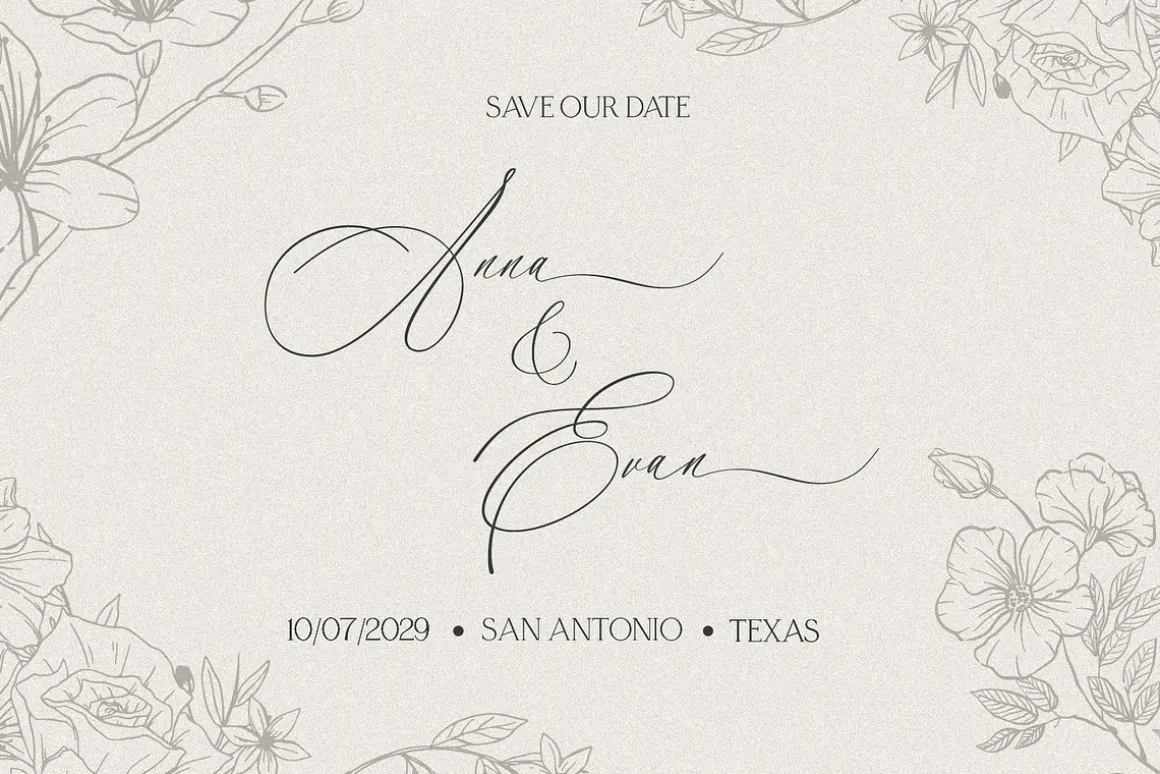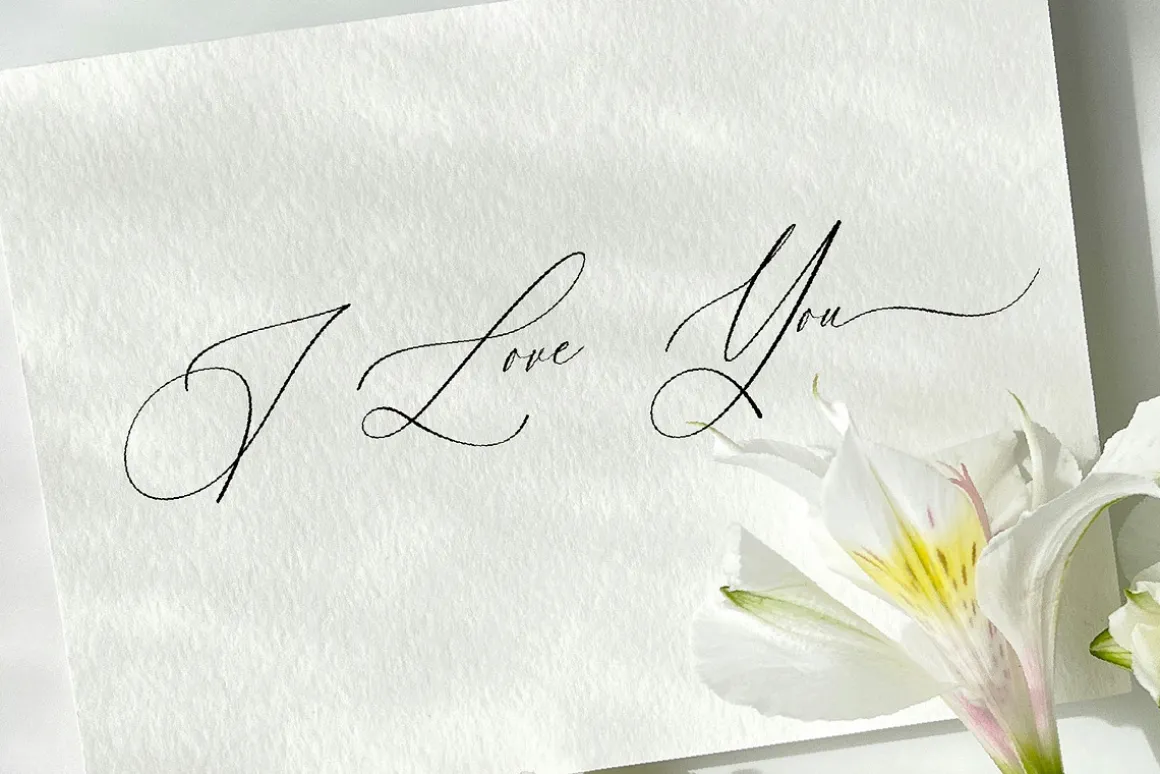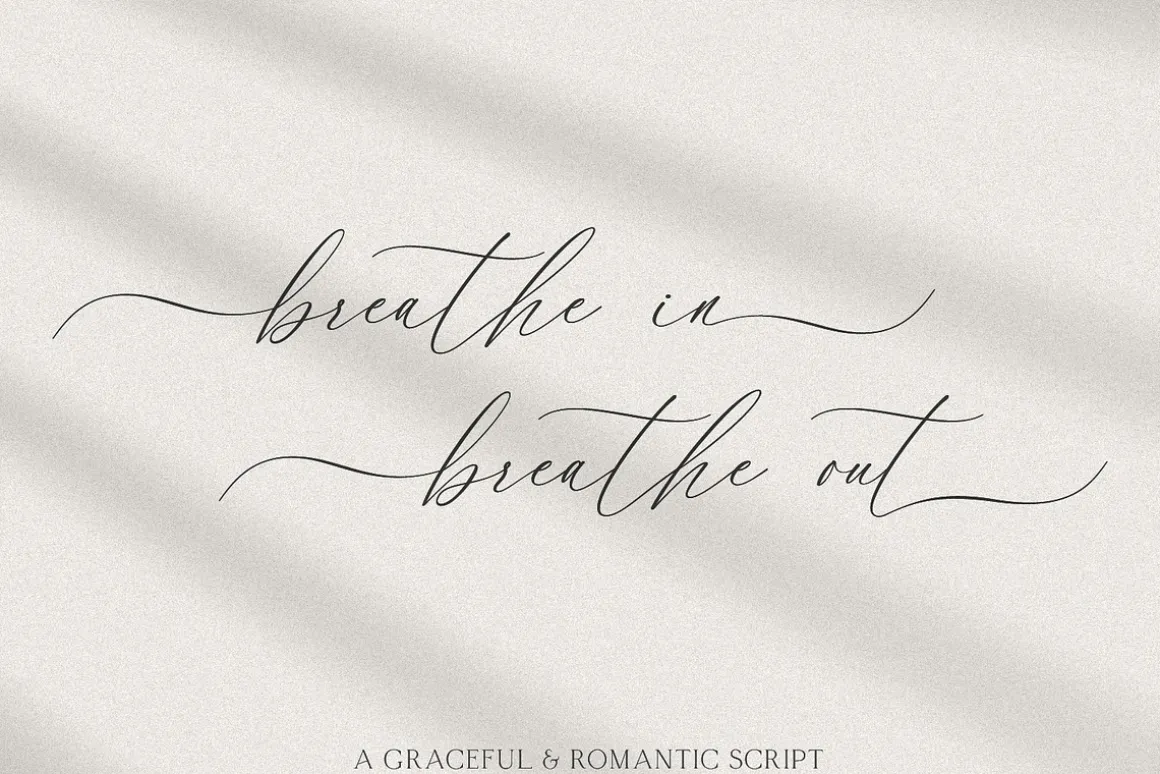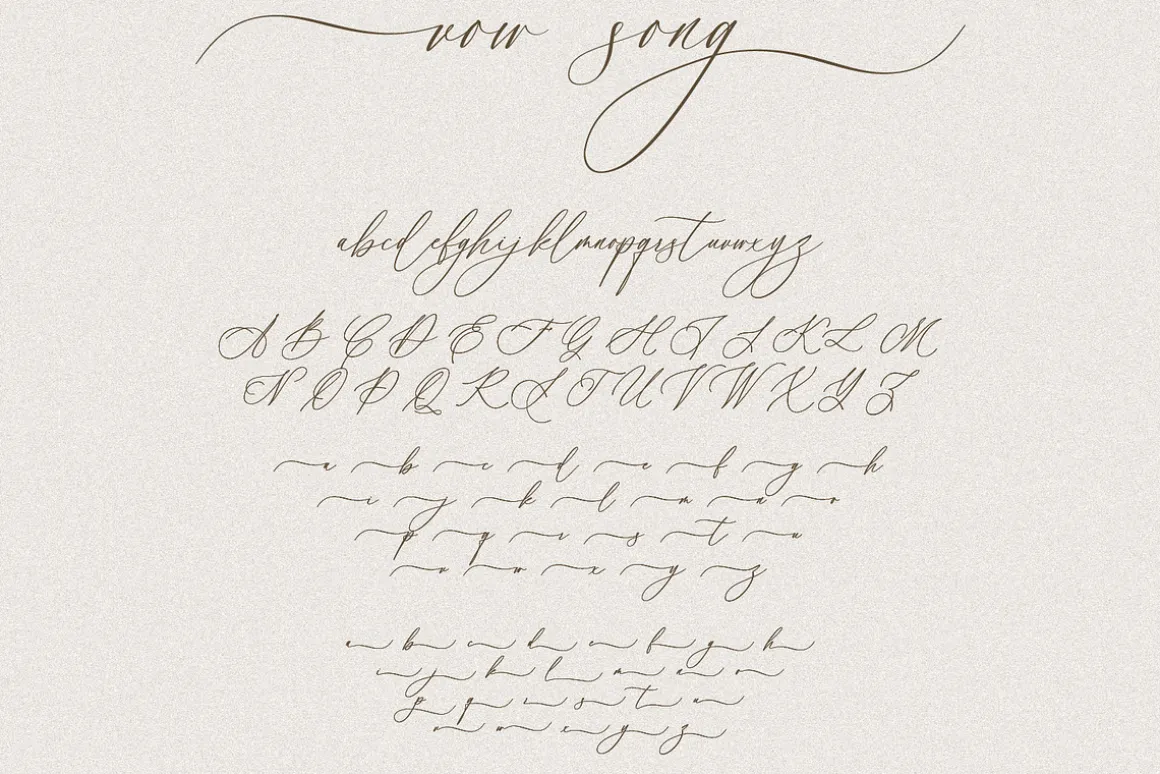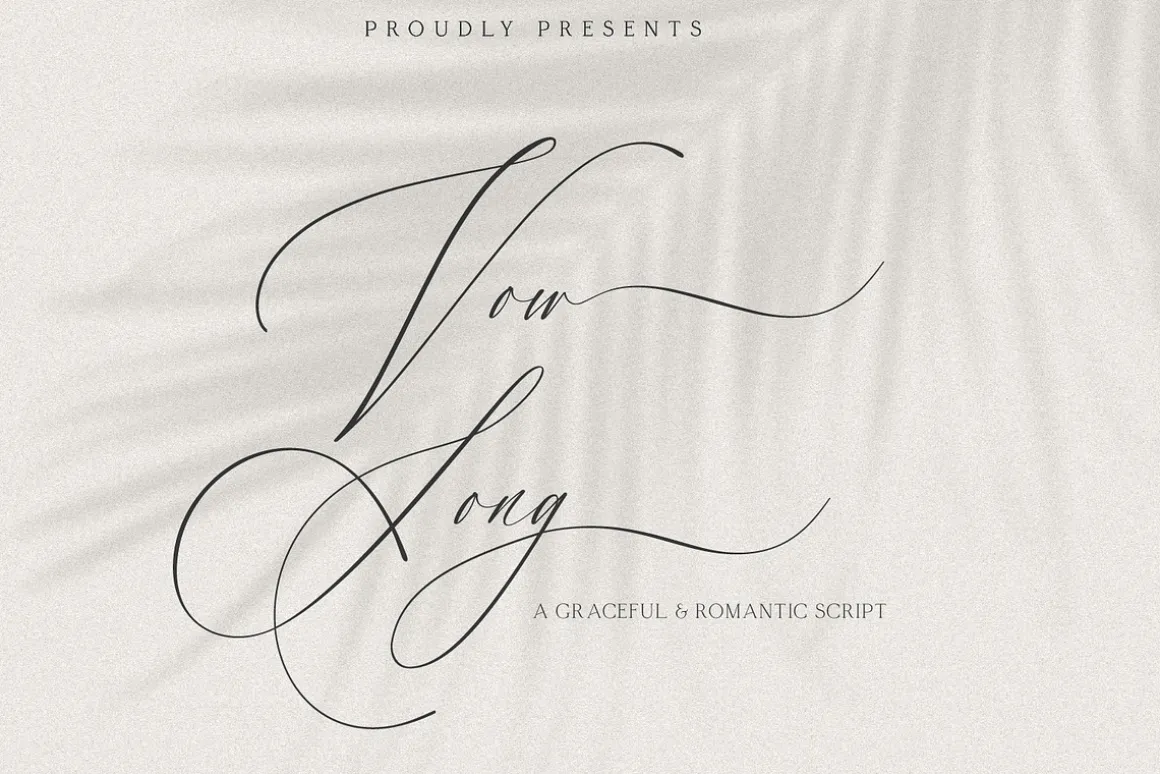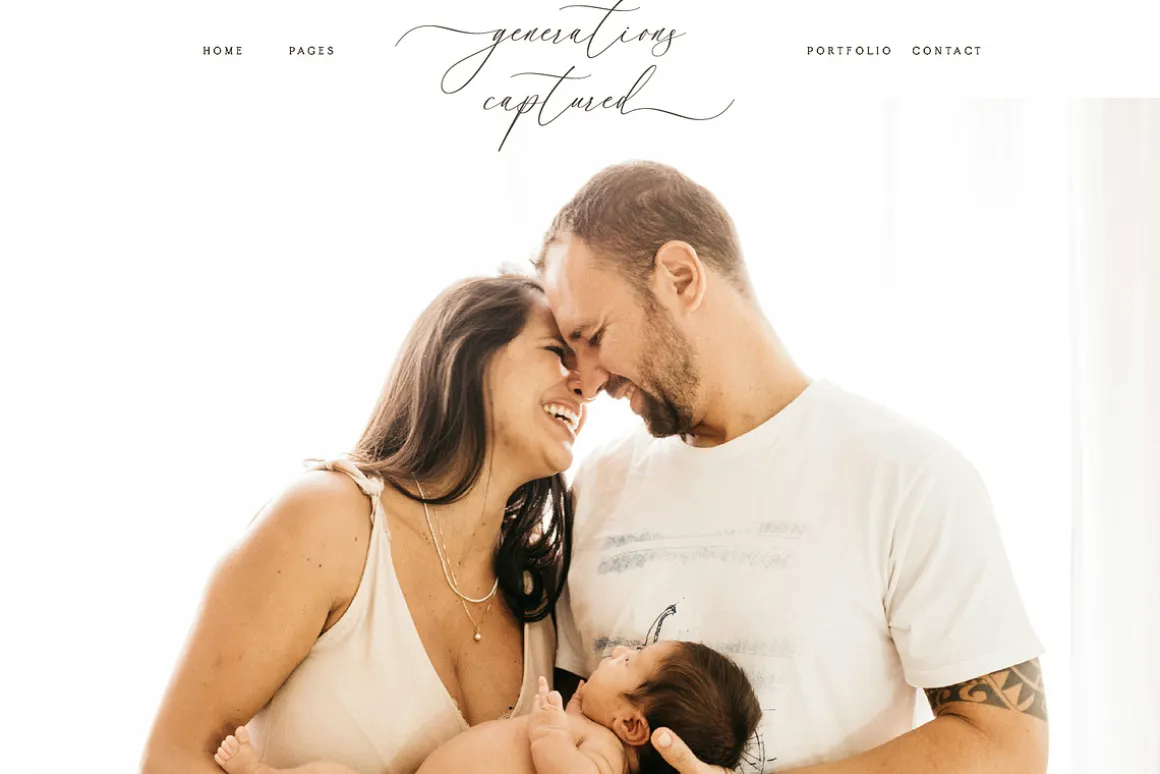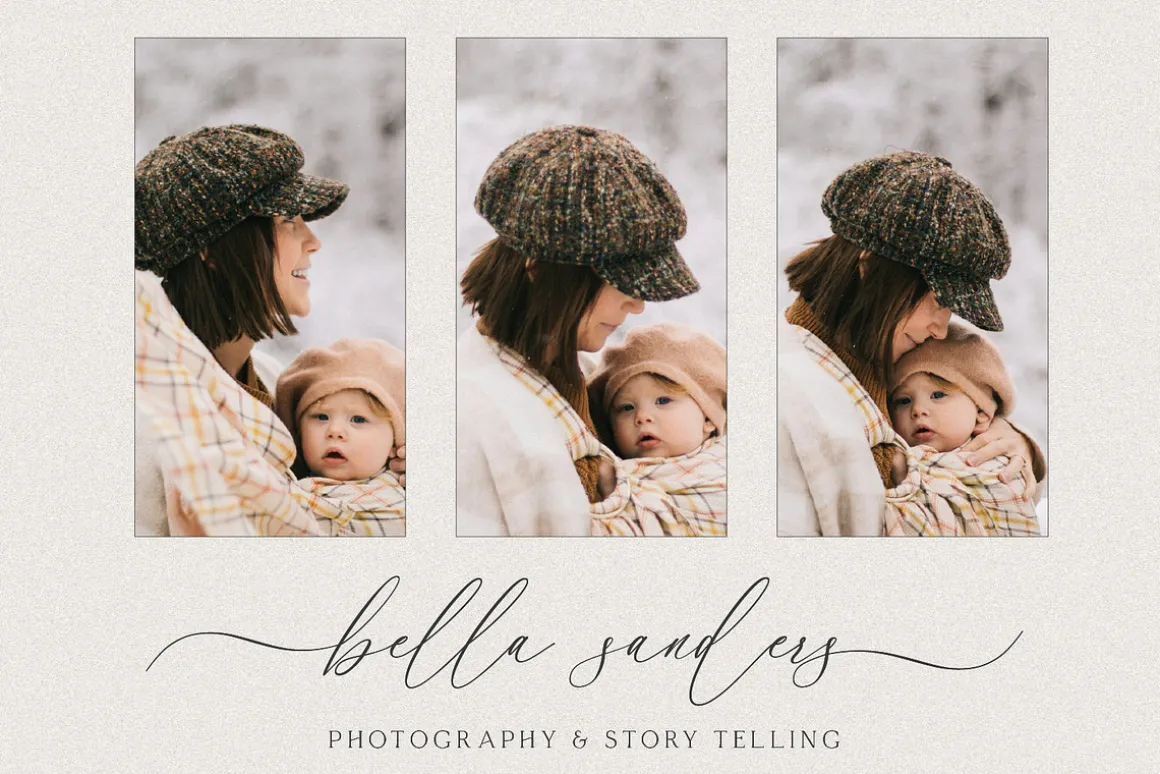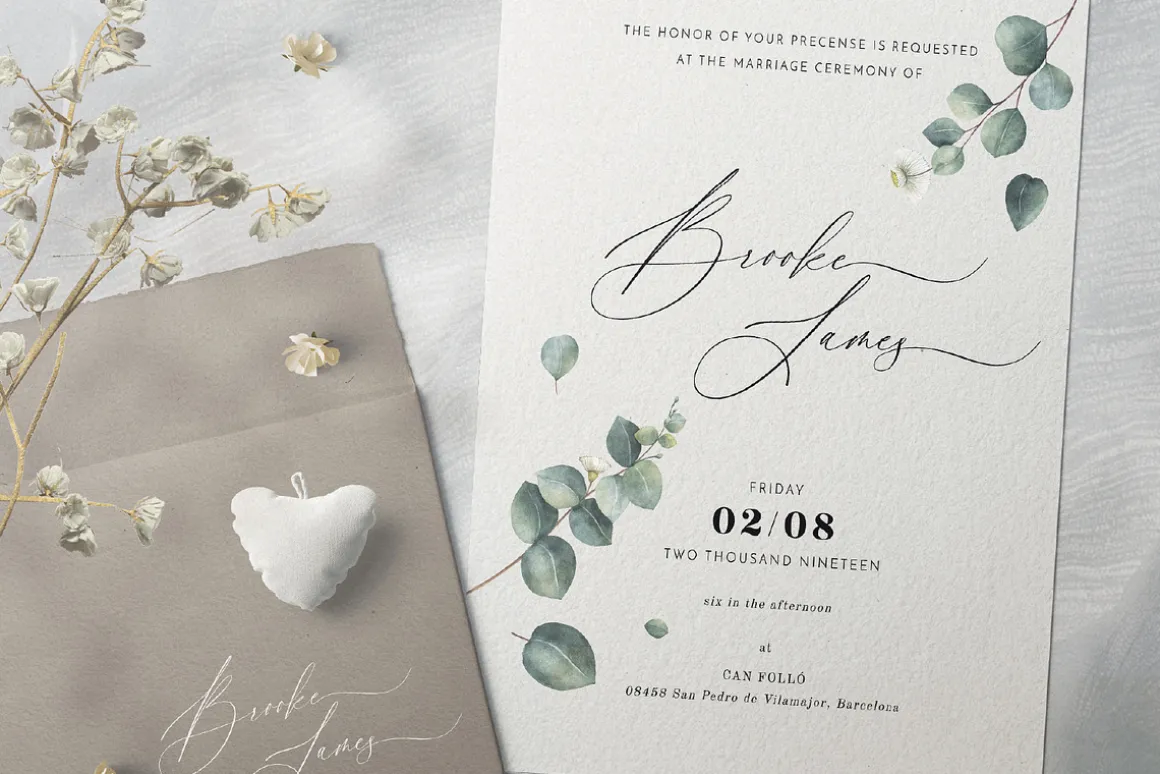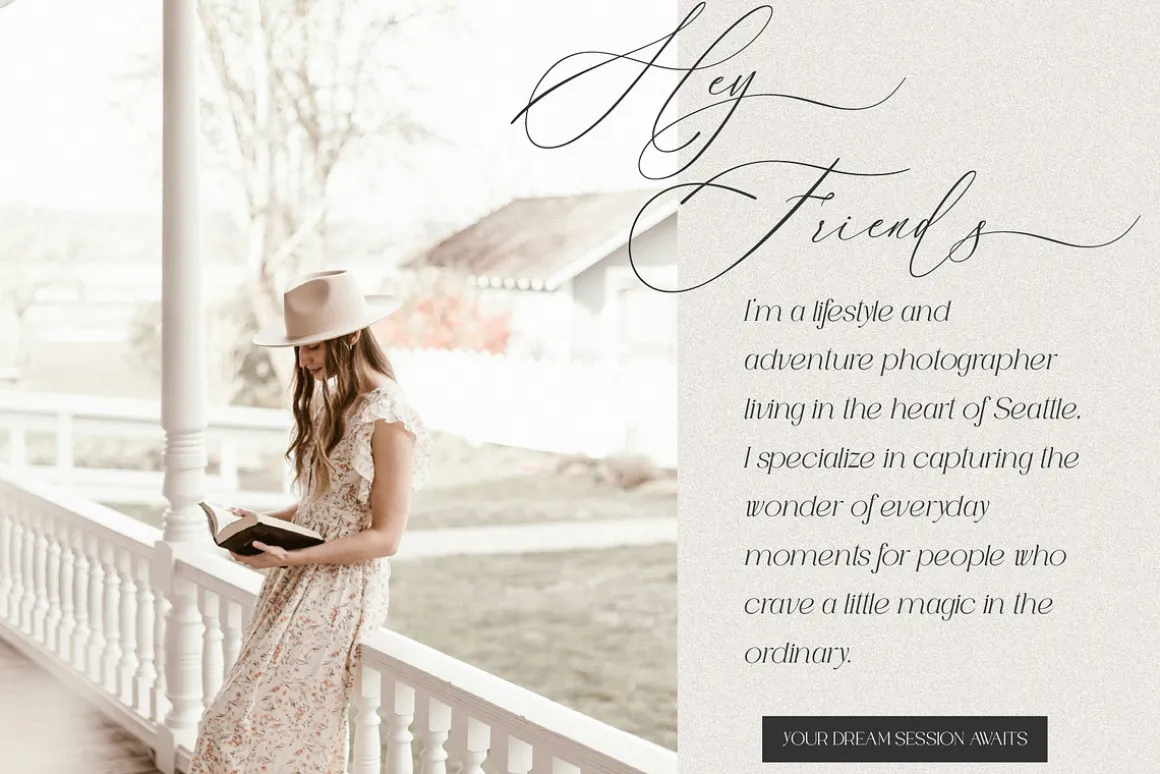
Introducing Vow Song, a gracefully crafted font that intertwines classic elegance with a modern twist, perfect for wedding invitations, branding, and creative projects.
Its flowing, hand-drawn letterforms evoke a romantic charm that effortlessly enhances any design while offering exceptional versatility for both digital and print applications.